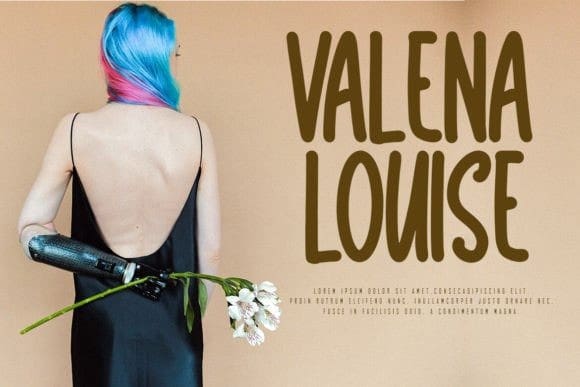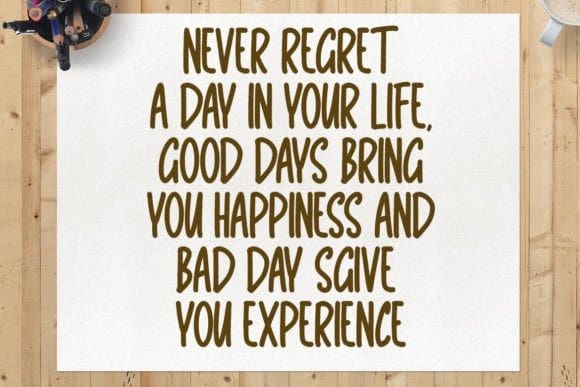
Vaselyn Font
Vaselyn Font is a monoline Handwritten Font, crafted to give your headlines and logotype projects a stylish touch. This font reads as strong, confident, and dynamic and can add tons of urban character to your designs.